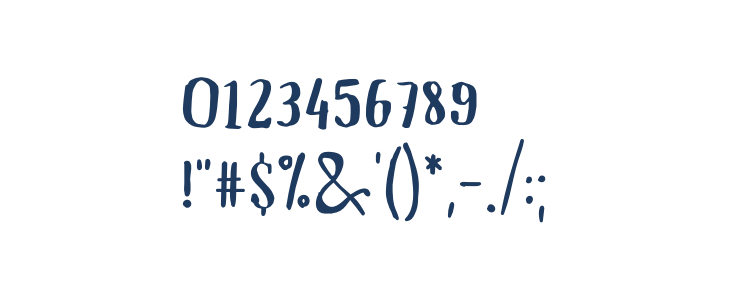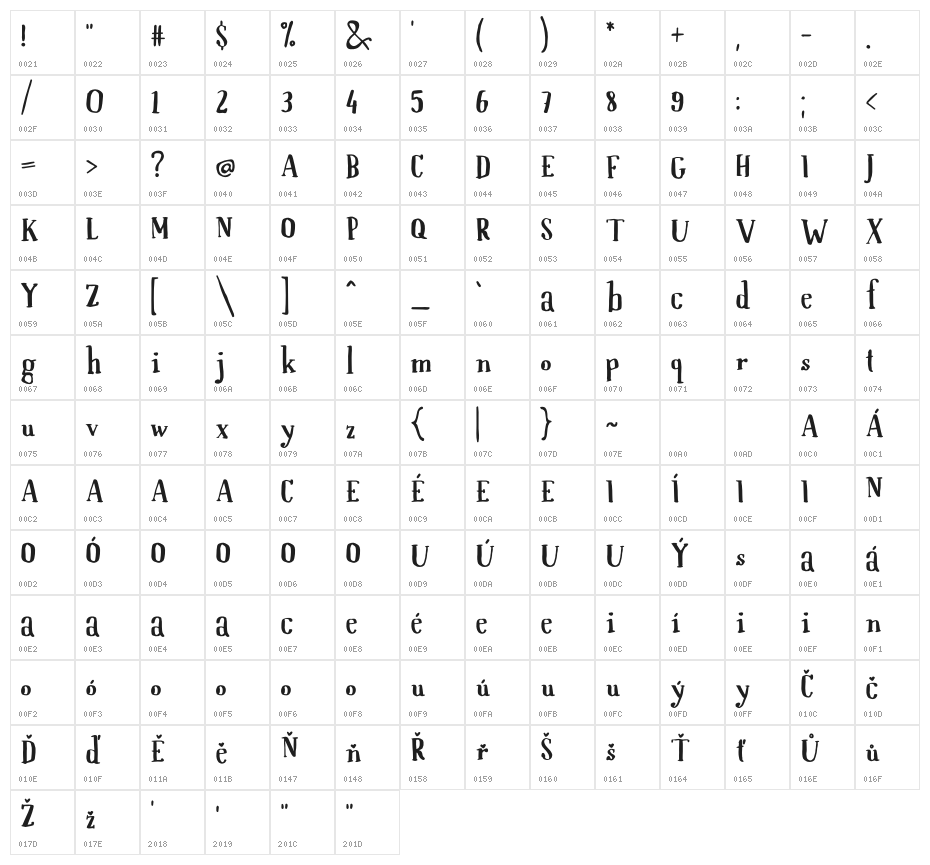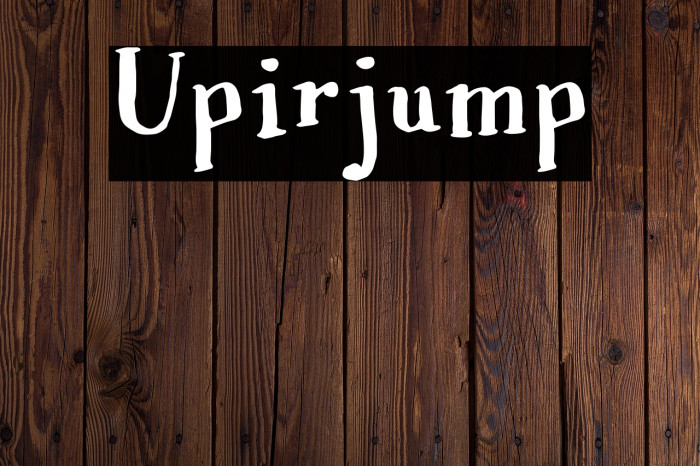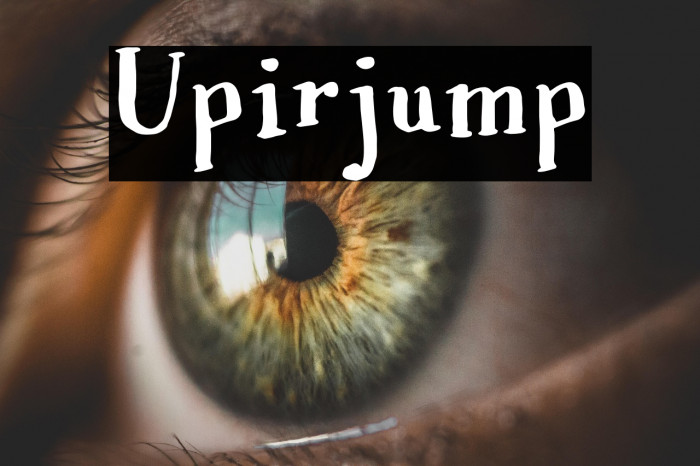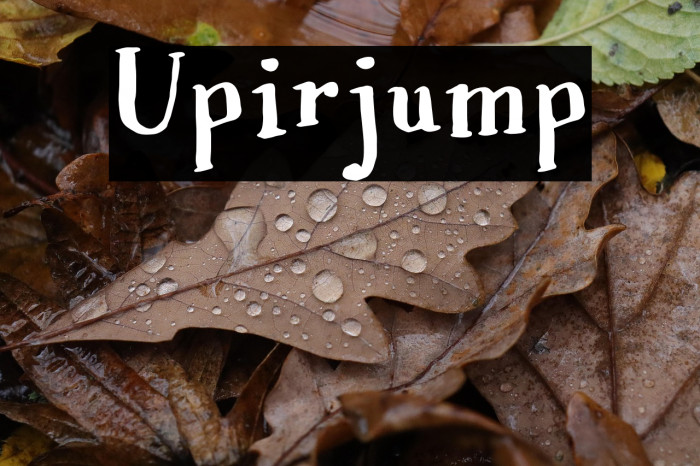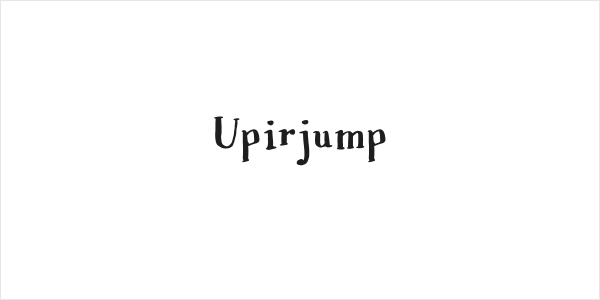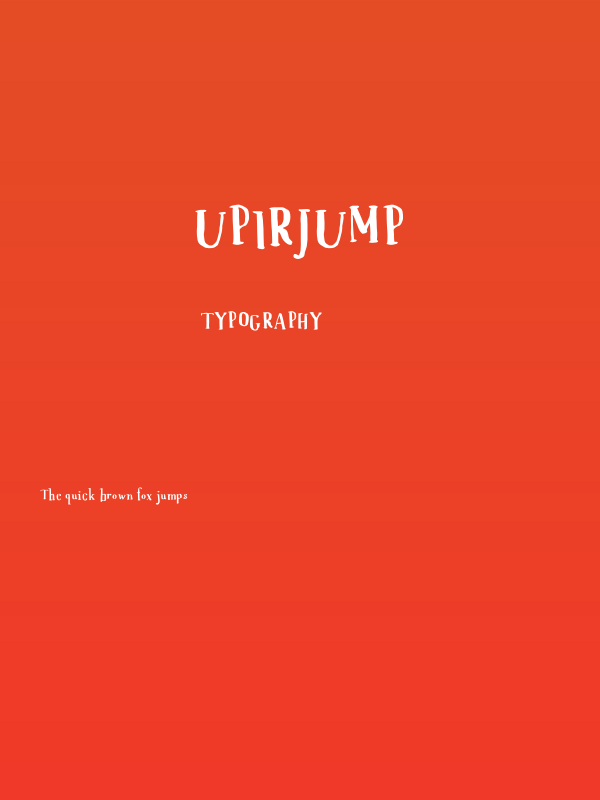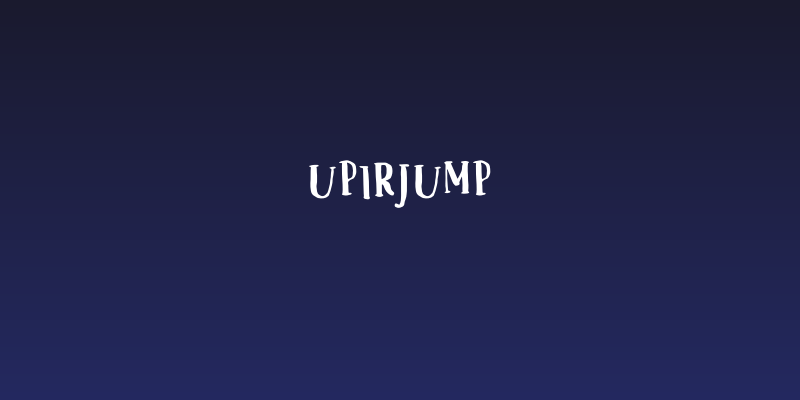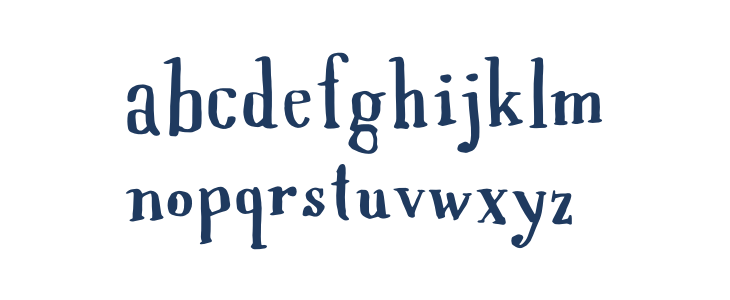
Upirjump Font
Upirjump Description
This font features a playful and slightly irregular style, with each character exhibiting a hand-drawn quality. The uppercase letters are bold and slightly uneven, adding a whimsical touch. The lowercase letters maintain this playful aesthetic, with some characters having unique flourishes. The numbers are consistent with the overall style, offering a bold and quirky appearance. Special characters are creatively designed, enhancing the font's decorative nature. This font's distinctive style makes it ideal for projects that require a fun and informal look.
Proposed ProjectsIdeal for children's books, creative posters, and playful branding materials.